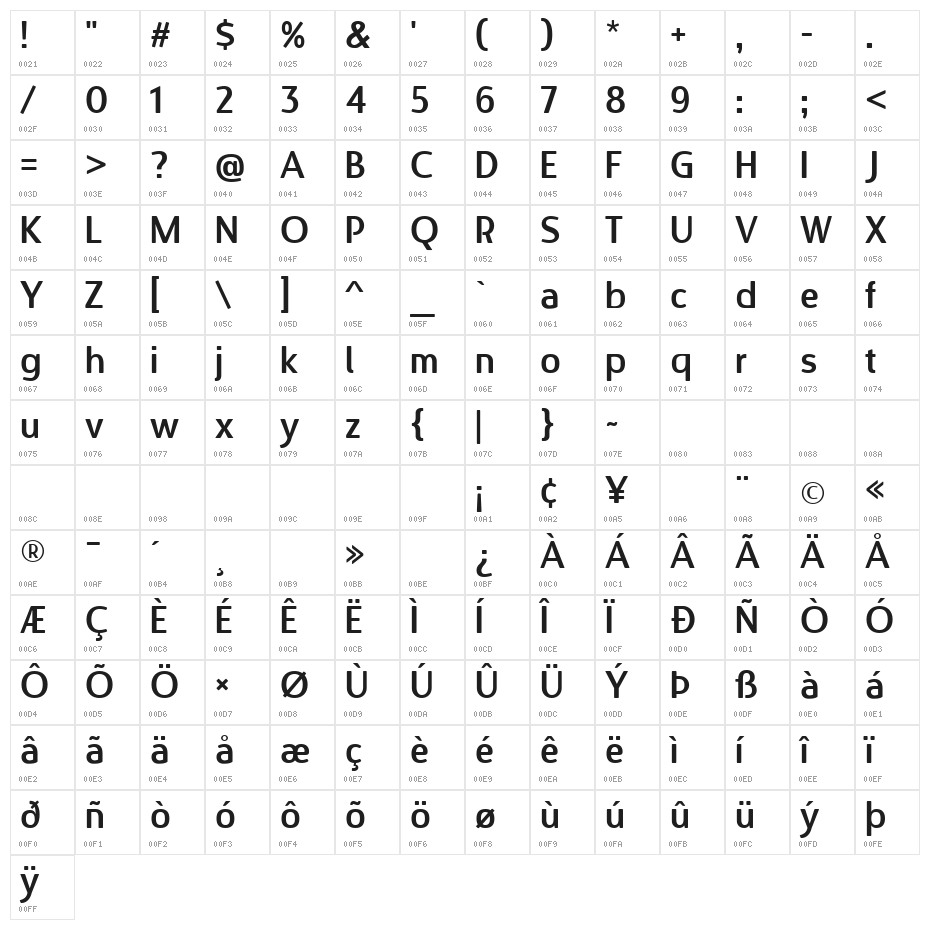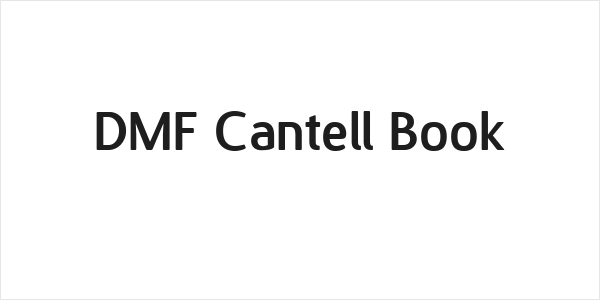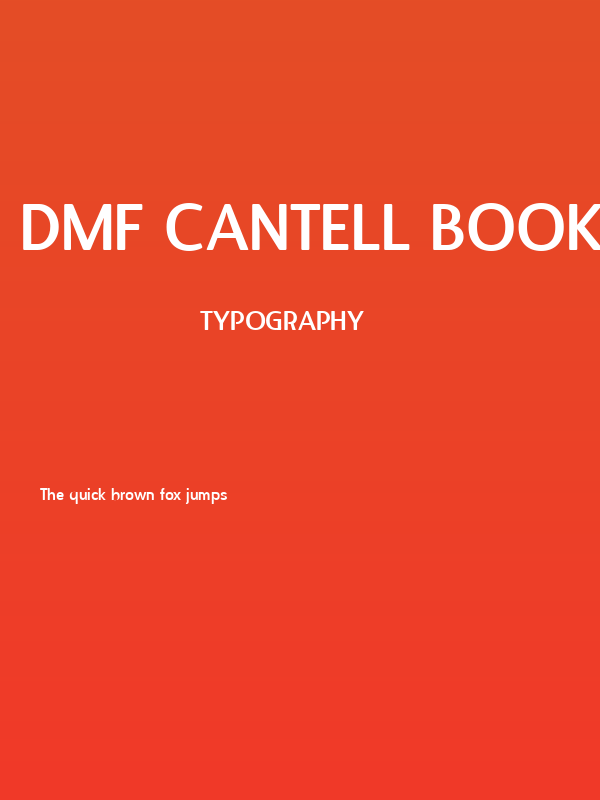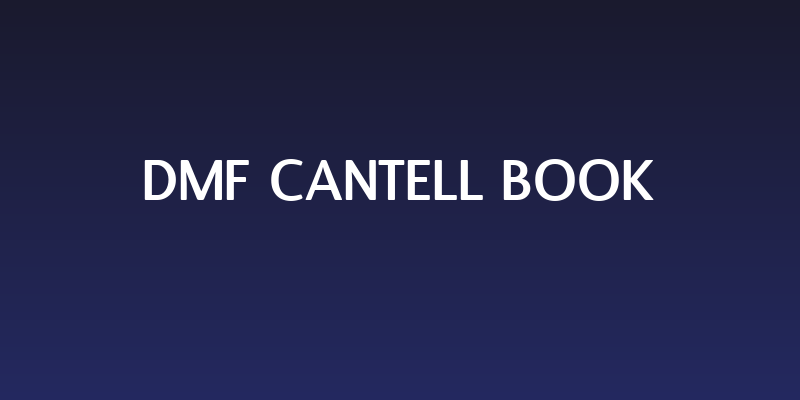
DMF Cantell Book Font
DMF Cantell Book Description
This font features a clean and modern sans-serif design with uniform stroke widths, providing a sleek and professional appearance. The characters are well-proportioned, offering excellent readability across both uppercase and lowercase letters. The numerals are distinct and clear, making them suitable for various applications. Special characters are included, maintaining the font's cohesive style. The overall design is versatile, making it suitable for both digital and print media.
| Proposed Projects | Ideal for corporate branding, web design, user interfaces, and editorial layouts. |